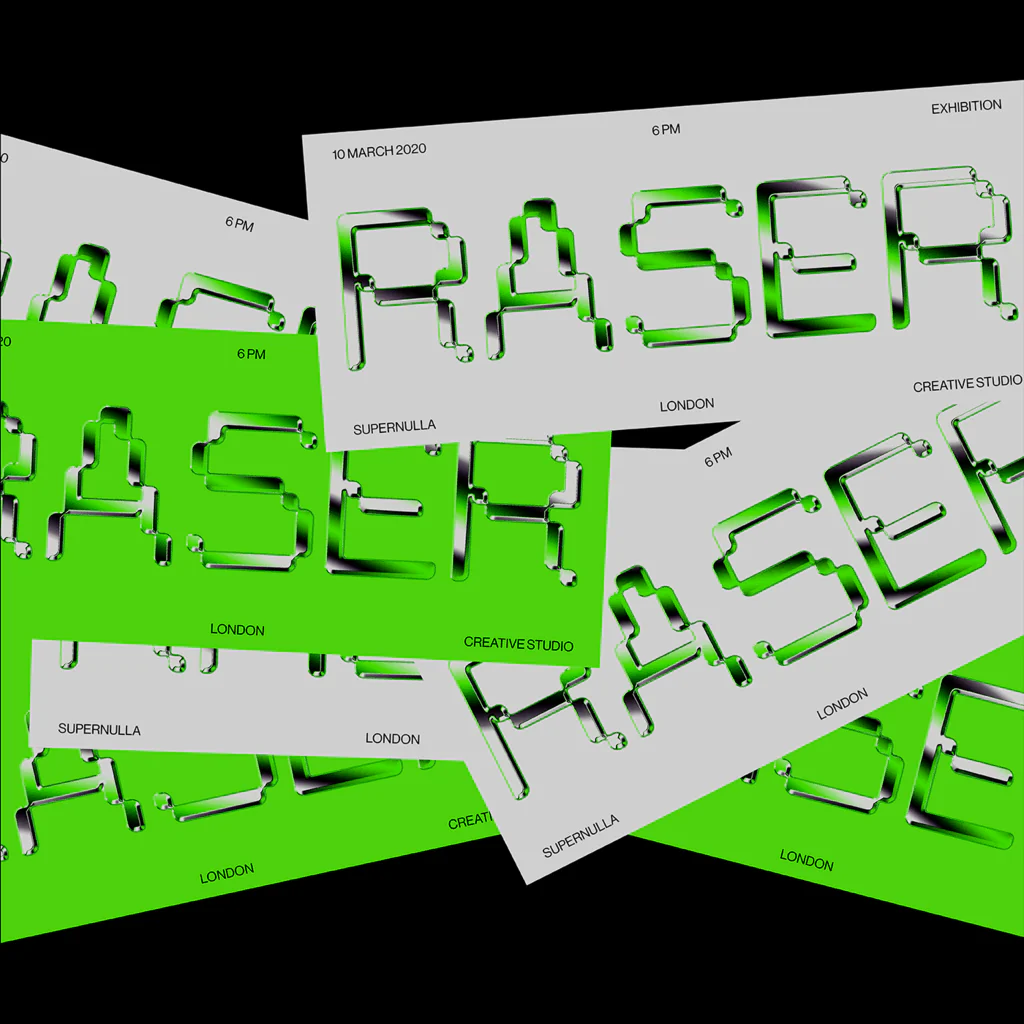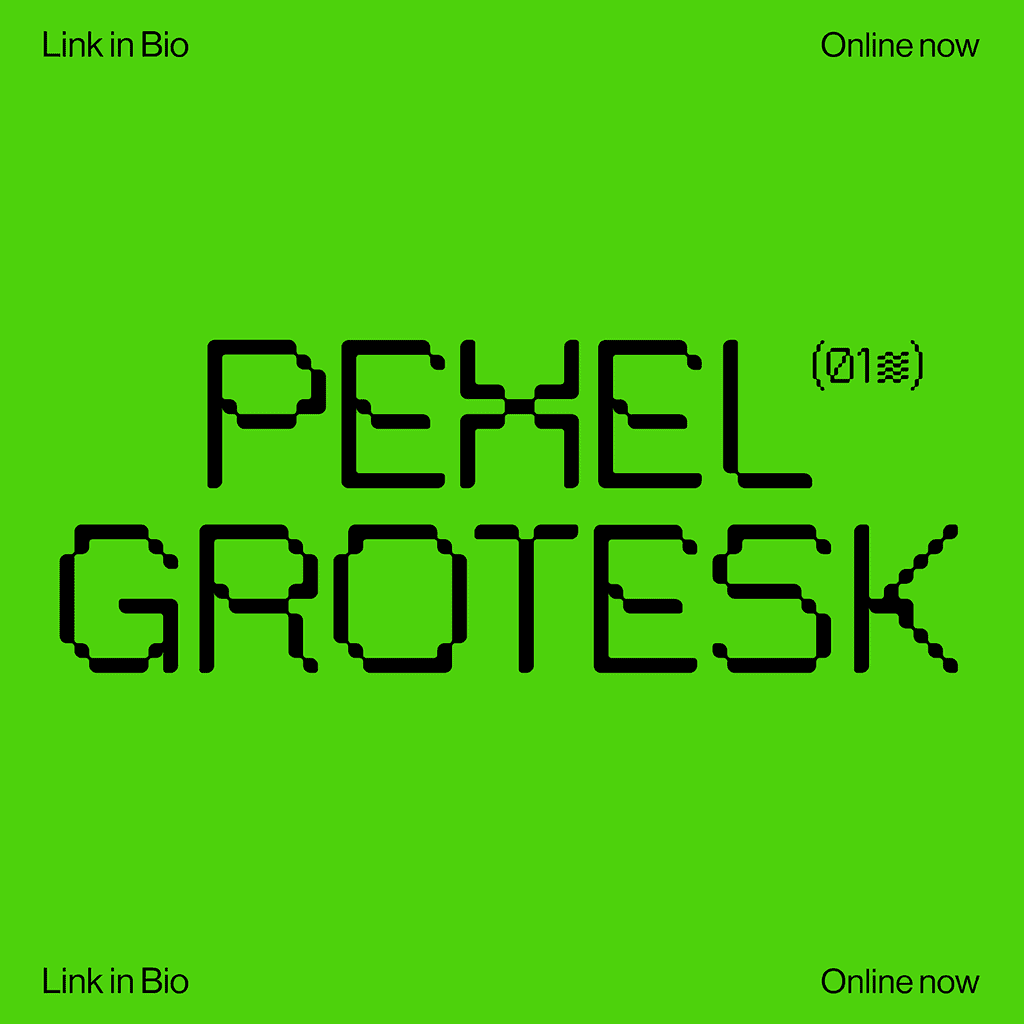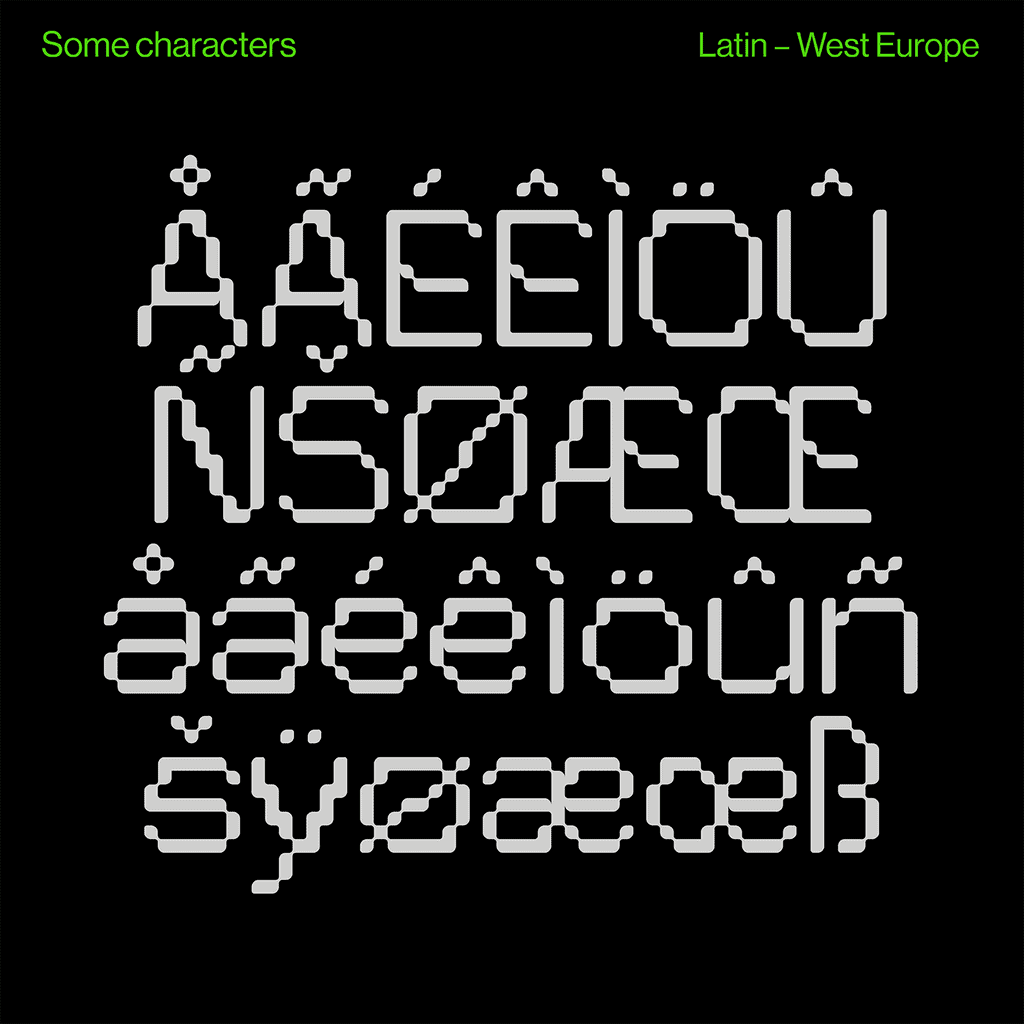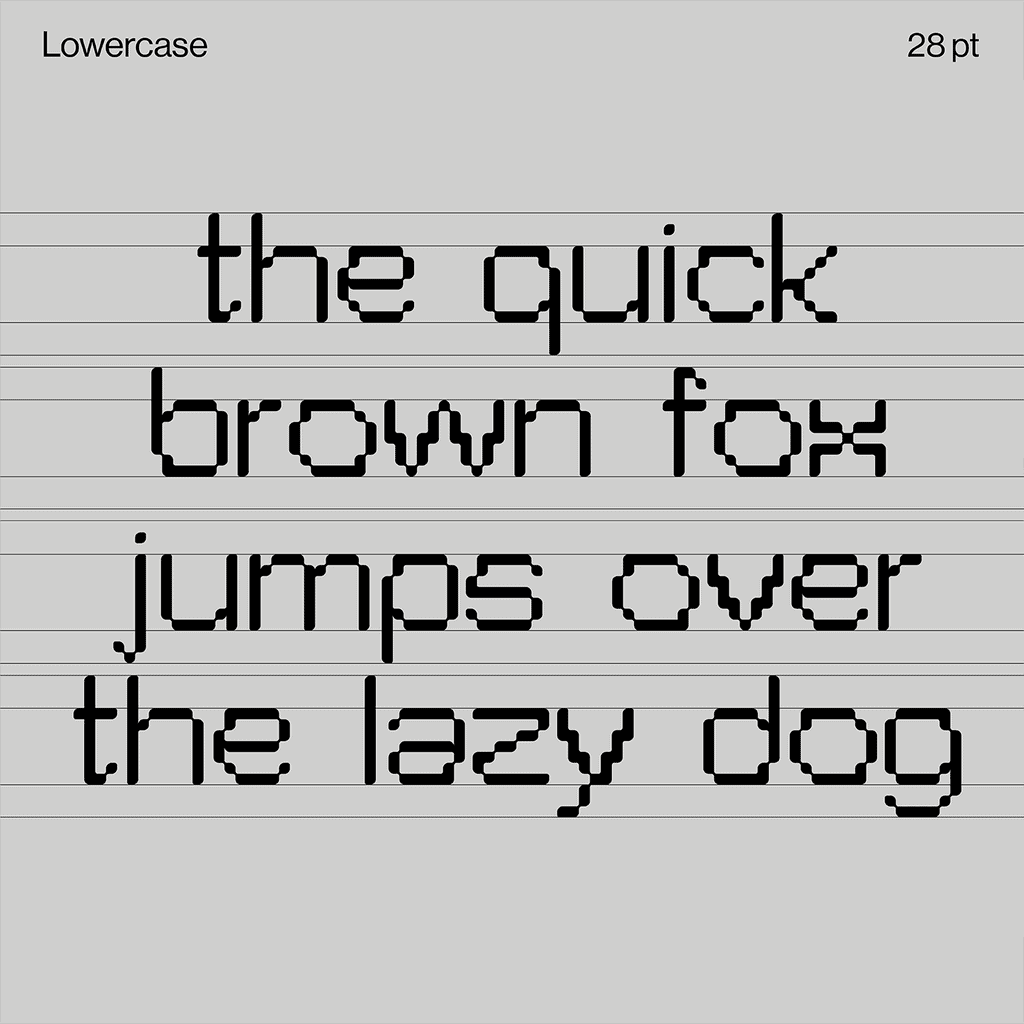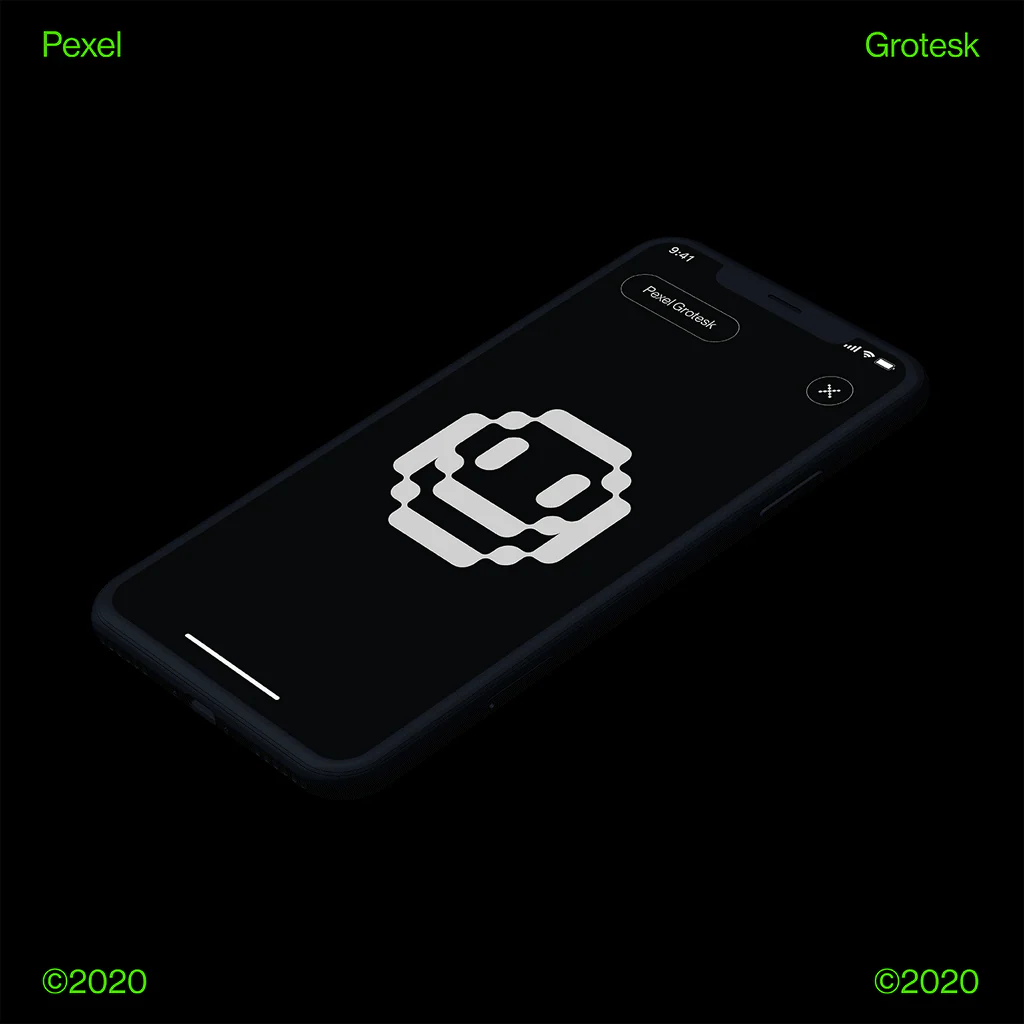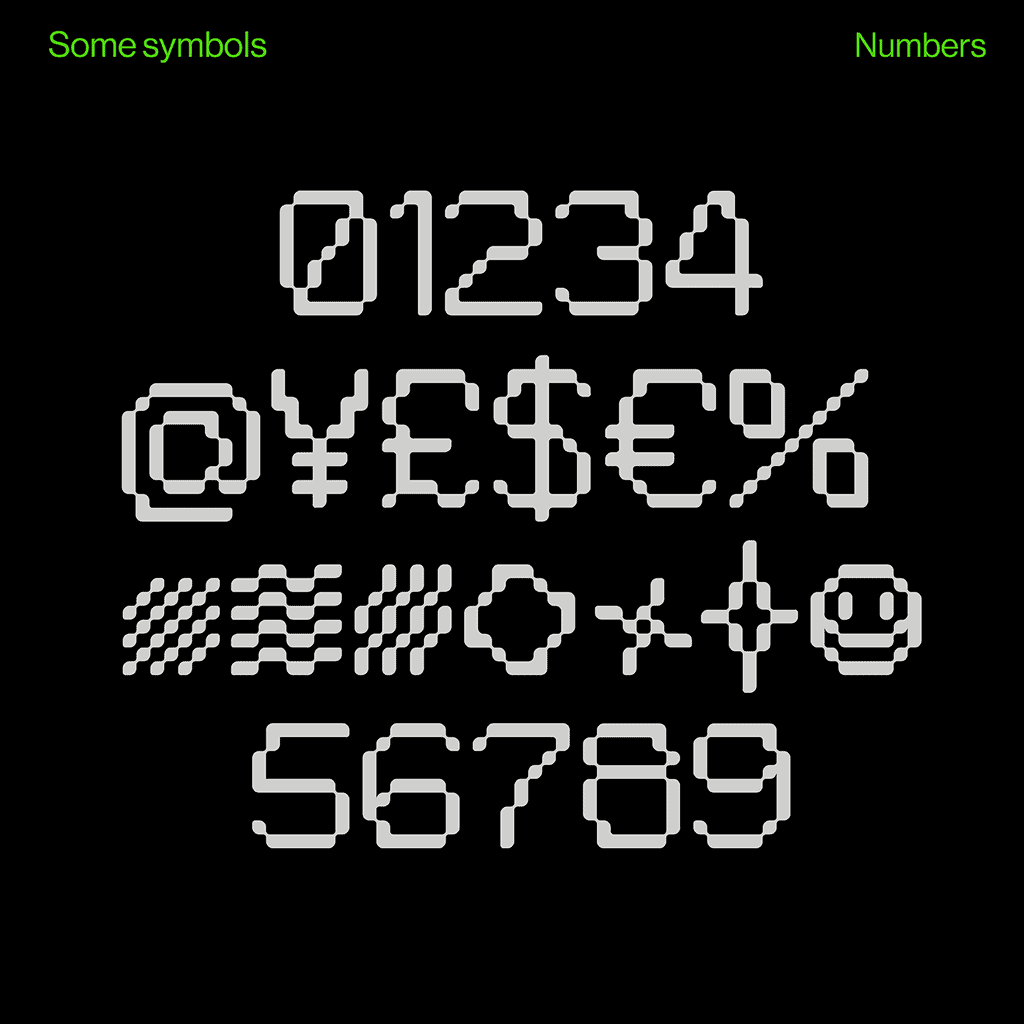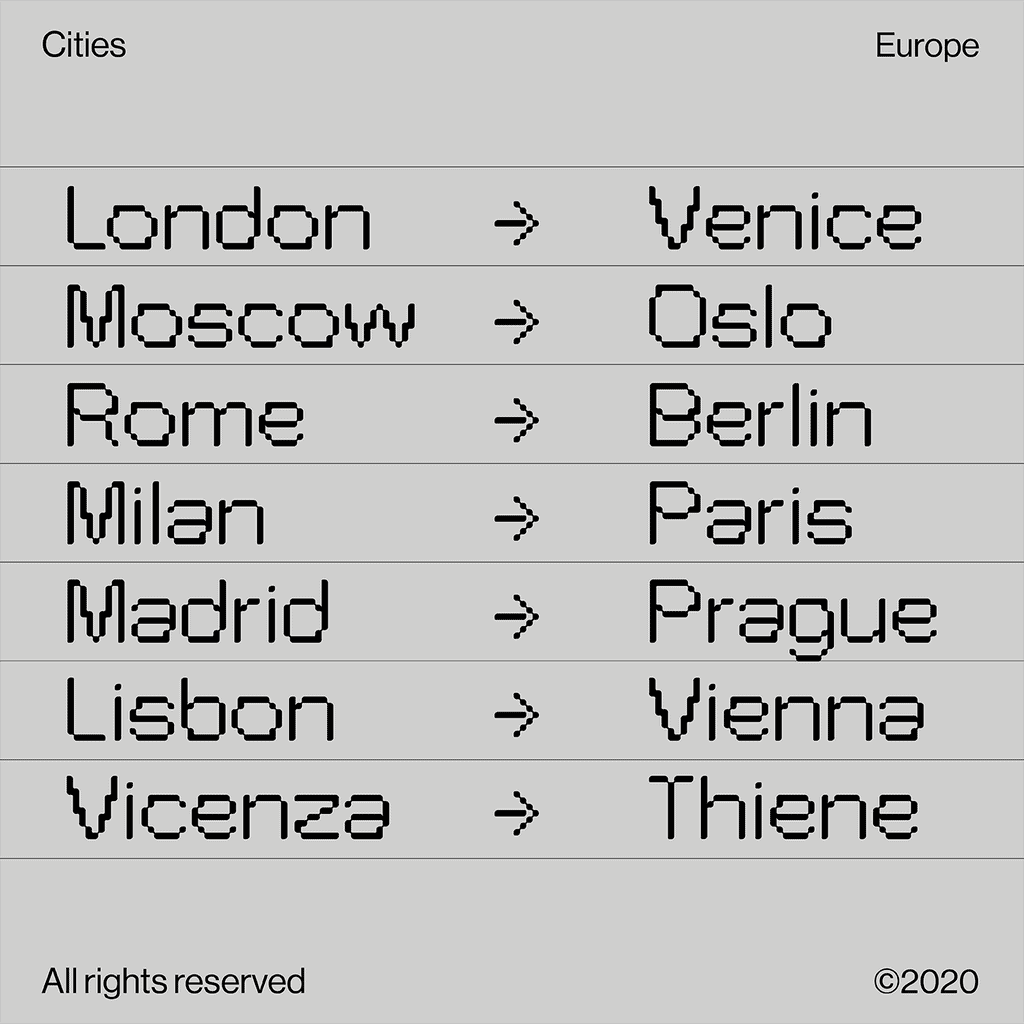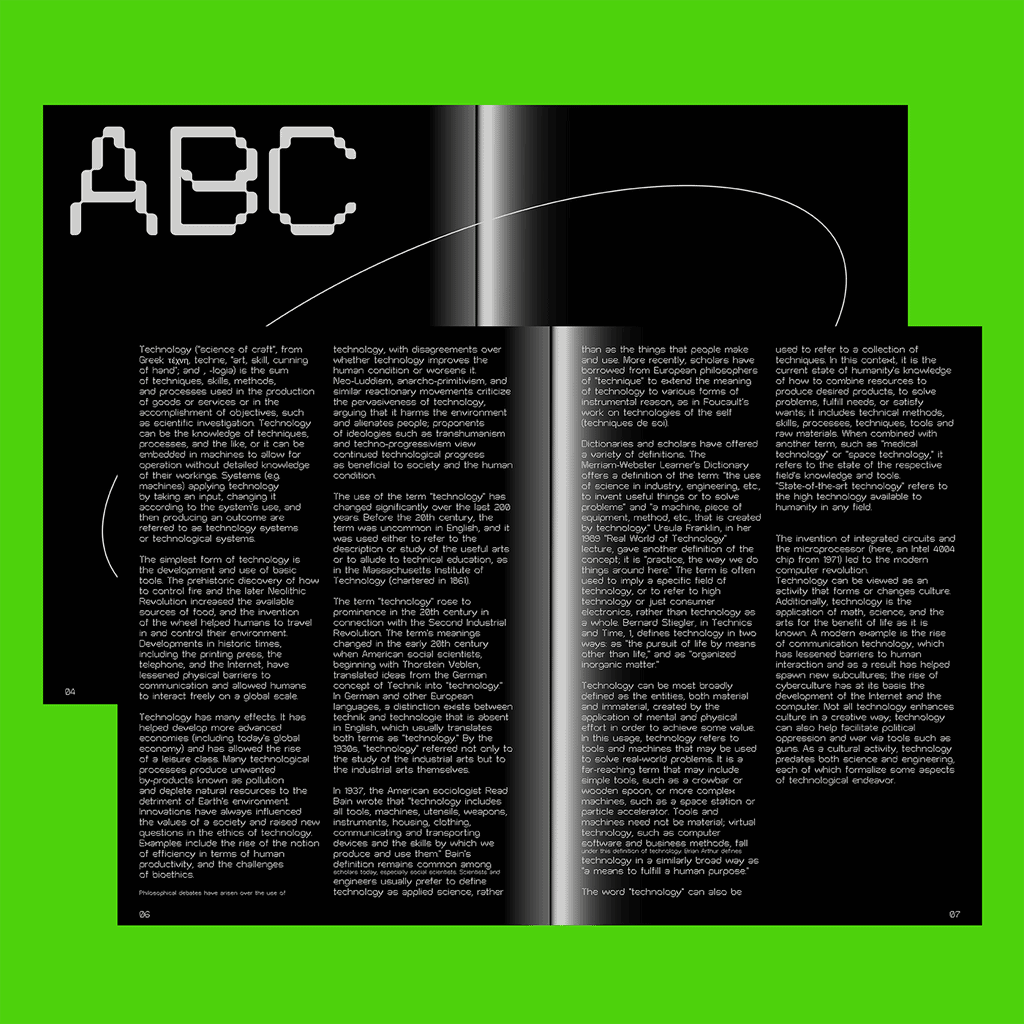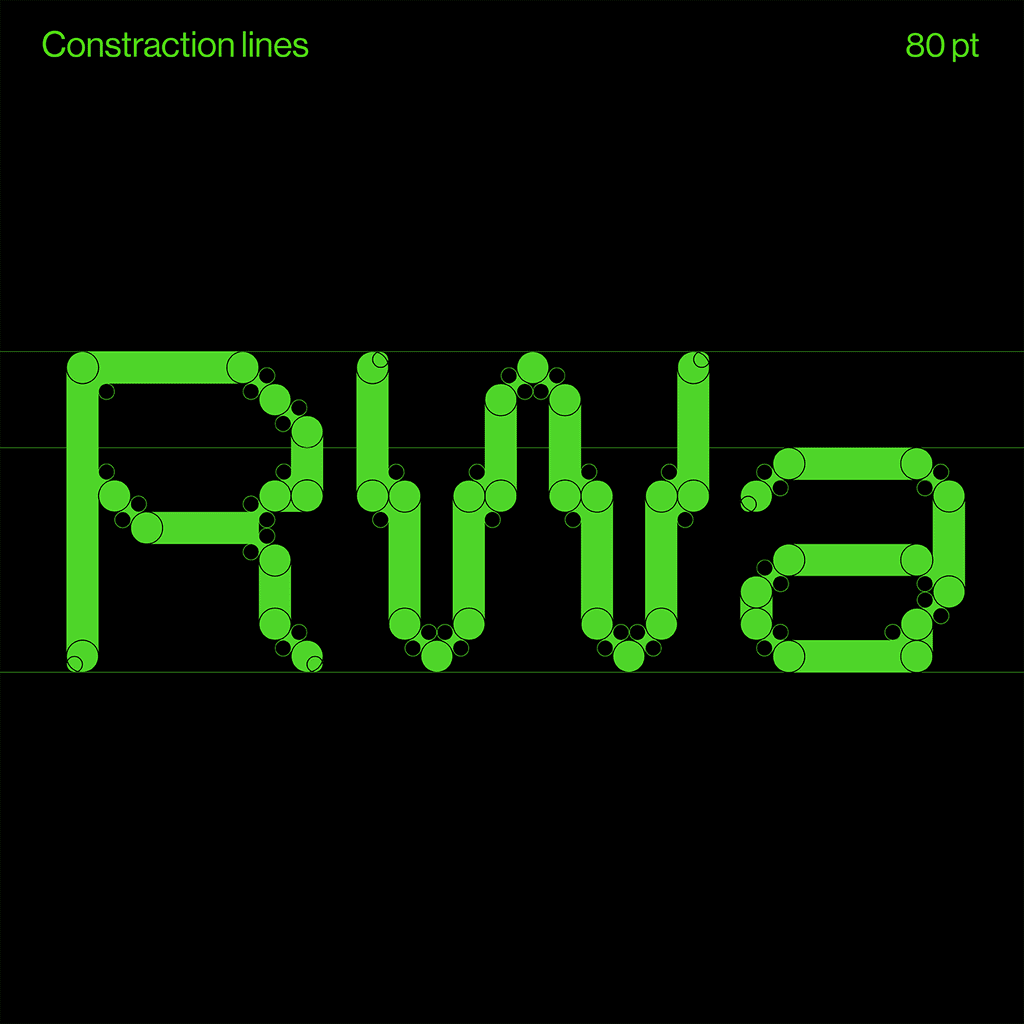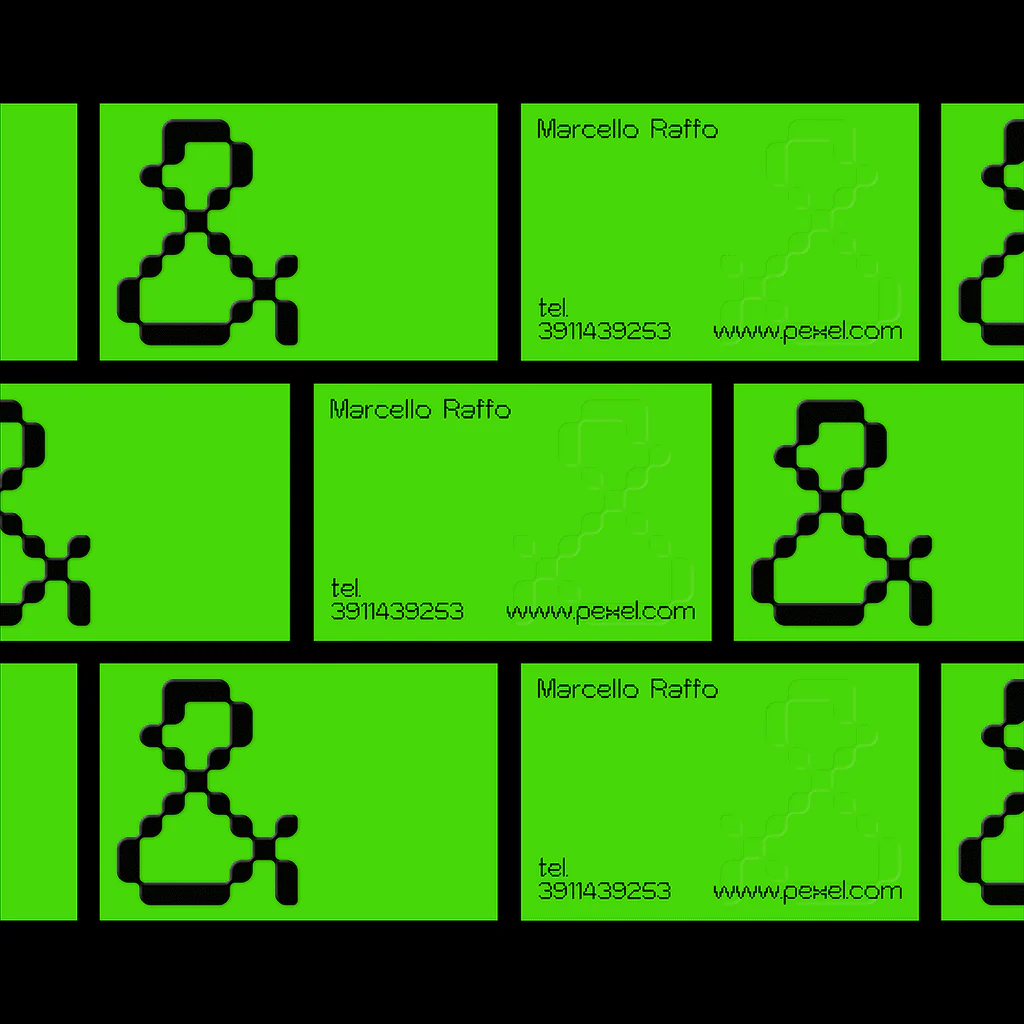
Pexel Grotesk
Driven by a passion for precision and character in pixel art, Pexel Grotesk meticulously recreates the proportions and essence of traditional grotesque typefaces within a strict pixel grid. This unique approach includes rounded edges, a distinctive feature rarely found in pixel fonts, adding an element of charm and versatility.
Boasting a glyph set of 236 characters and packed with numerous helpful features, Pexel Grotesk stands out as a refreshingly well-crafted pixel font. Its balanced blend of traditional aesthetics and pixel art innovation makes it a compelling choice for projects requiring both retro charm and modern functionality.